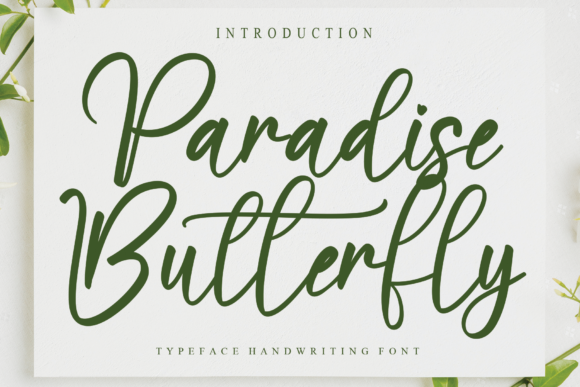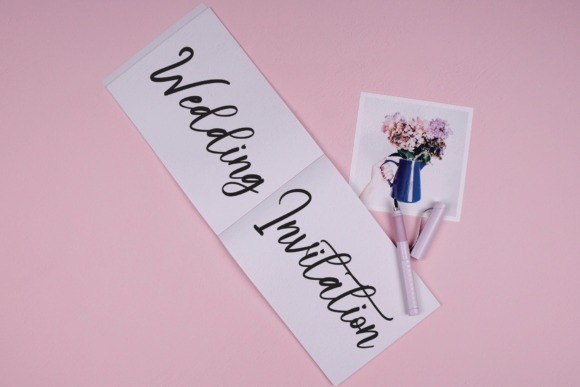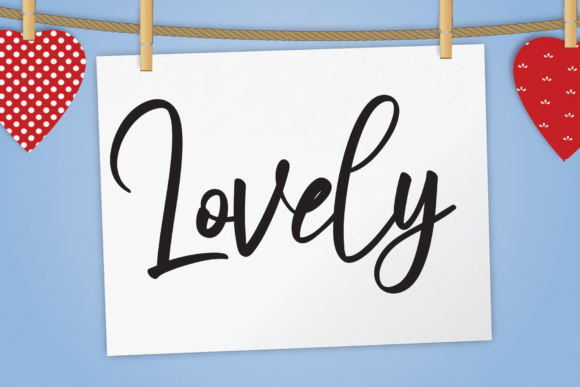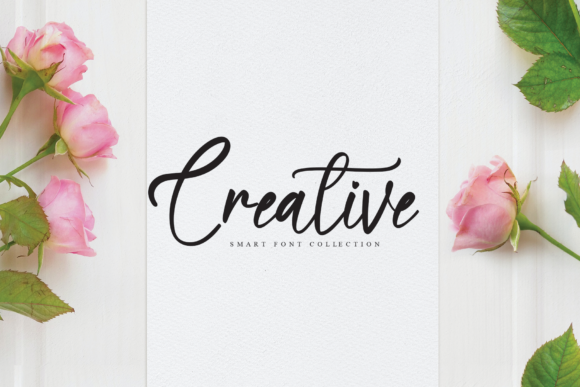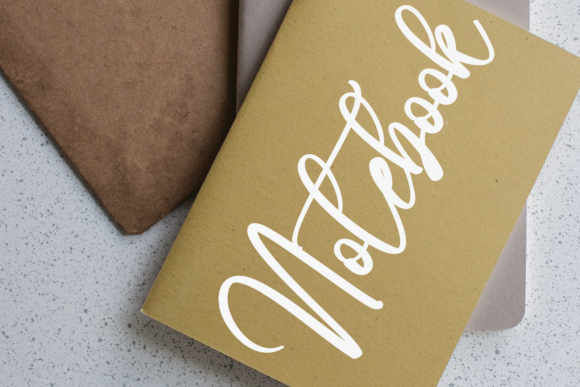
Paradise Butterfly Font
About Paradise Butterfly Font
Paradise Butterfly is a gorgeous and flowing handwritten font. It looks beautiful on a variety of designs requiring a personalized style, such as wedding invitations, thank you cards, weddings, greeting cards, logos and so on.